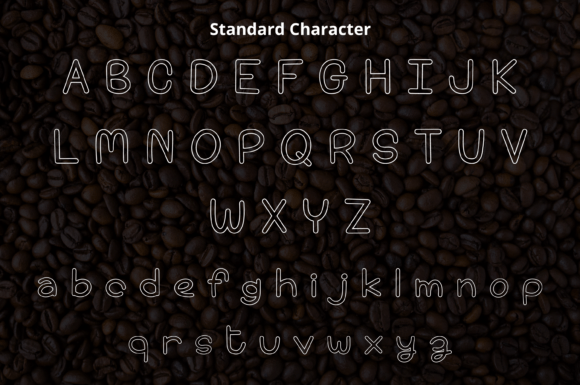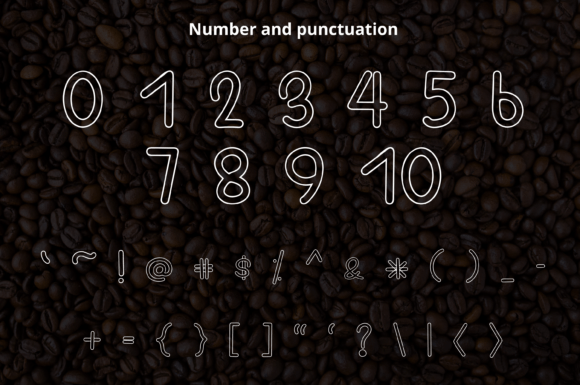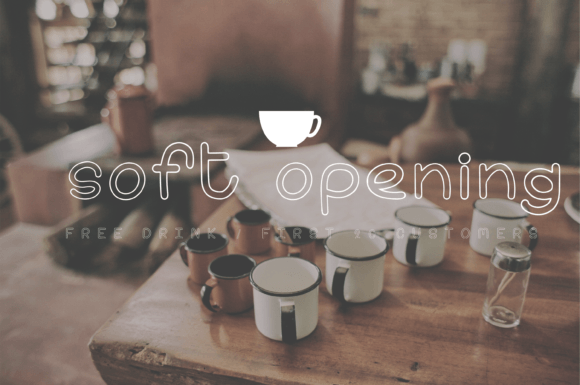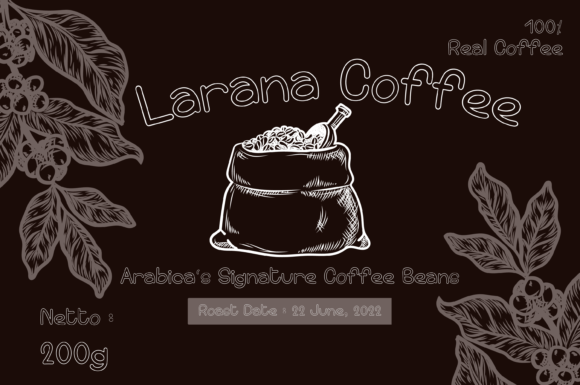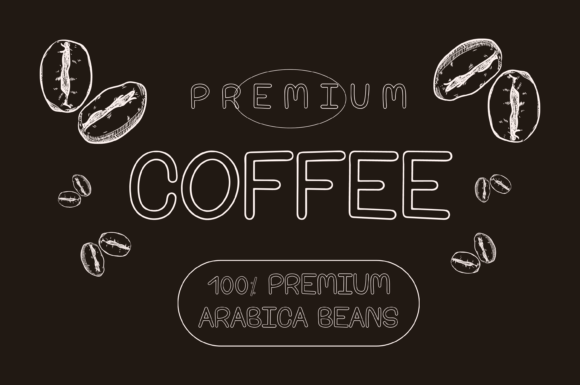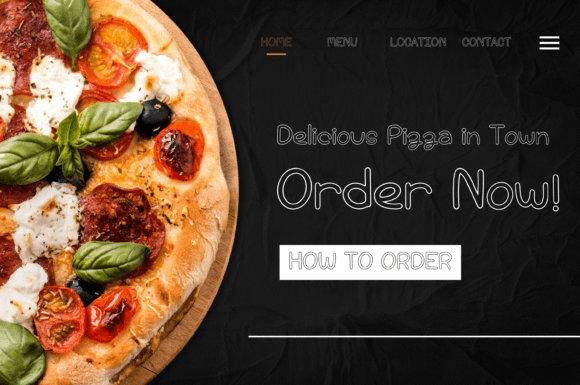
Coffee Cake Font: Elevate Your Designs with a Whimsical and Clean Display Font
Are you a designer or crafter looking for a unique and eye-catching font to add to your creative projects? Look no further than the Coffee Cake Font! This whimsical and clean display font is perfect for making your designs stand out and leaving a lasting impression on your audience. In this article, we’ll explore the features and benefits of the Coffee Cake Font, and how it can be used to elevate your designs and take your creativity to the next level.
What is Coffee Cake Font?
Coffee Cake Font is a modern and stylish display font that is perfect for use in a wide range of creative projects. Its whimsical and clean design makes it ideal for use in titles, headings, and other display text, and its highly legible and versatile nature makes it suitable for use in a variety of contexts. Whether you’re designing a logo, creating a social media graphic, or crafting a handmade card or gift tag, the Coffee Cake Font is sure to add a touch of elegance and sophistication to your work.
Key Features of Coffee Cake Font
So, what makes the Coffee Cake Font so special? Here are just a few of its key features:
- Whimsical and Clean Design: The Coffee Cake Font features a unique and eye-catching design that is both whimsical and clean. Its elegant lines and curves make it perfect for use in display text, and its highly legible nature ensures that it can be easily read and understood.
- Highly Versatile: The Coffee Cake Font is highly versatile and can be used in a wide range of creative projects. Whether you’re designing a logo, creating a social media graphic, or crafting a handmade card or gift tag, this font is sure to be a great fit.
Benefits of Using Coffee Cake Font
So, why should you choose the Coffee Cake Font for your next creative project? Here are just a few of the benefits of using this amazing font:
- Adds a Touch of Elegance: The Coffee Cake Font adds a touch of elegance and sophistication to any design. Its whimsical and clean design makes it perfect for use in titles, headings, and other display text.
- Improves Readability: The Coffee Cake Font is highly legible and easy to read, making it perfect for use in designs where readability is important.
- Increases Creativity: The Coffee Cake Font is a versatile and creative font that can be used in a wide range of contexts. Its unique and eye-catching design makes it perfect for use in creative projects where you want to stand out from the crowd.
Project Ideas for Coffee Cake Font
The Coffee Cake Font is a versatile and creative font that can be used in a wide range of projects. Here are just a few ideas to get you started:
- Logos and Branding: Use the Coffee Cake Font to create a unique and eye-catching logo or brand identity.
- Social Media Graphics: Use the Coffee Cake Font to create social media graphics that stand out from the crowd.
- Handmade Cards and Gifts: Use the Coffee Cake Font to add a touch of elegance and sophistication to your handmade cards and gifts.
In conclusion, the Coffee Cake Font is a whimsical and clean display font that is perfect for designers and crafters looking to add a touch of elegance and sophistication to their creative projects. Its highly versatile and legible nature makes it suitable for use in a wide range of contexts, and its easy to use and install. So why not give it a try and see how it can elevate your designs and take your creativity to the next level?